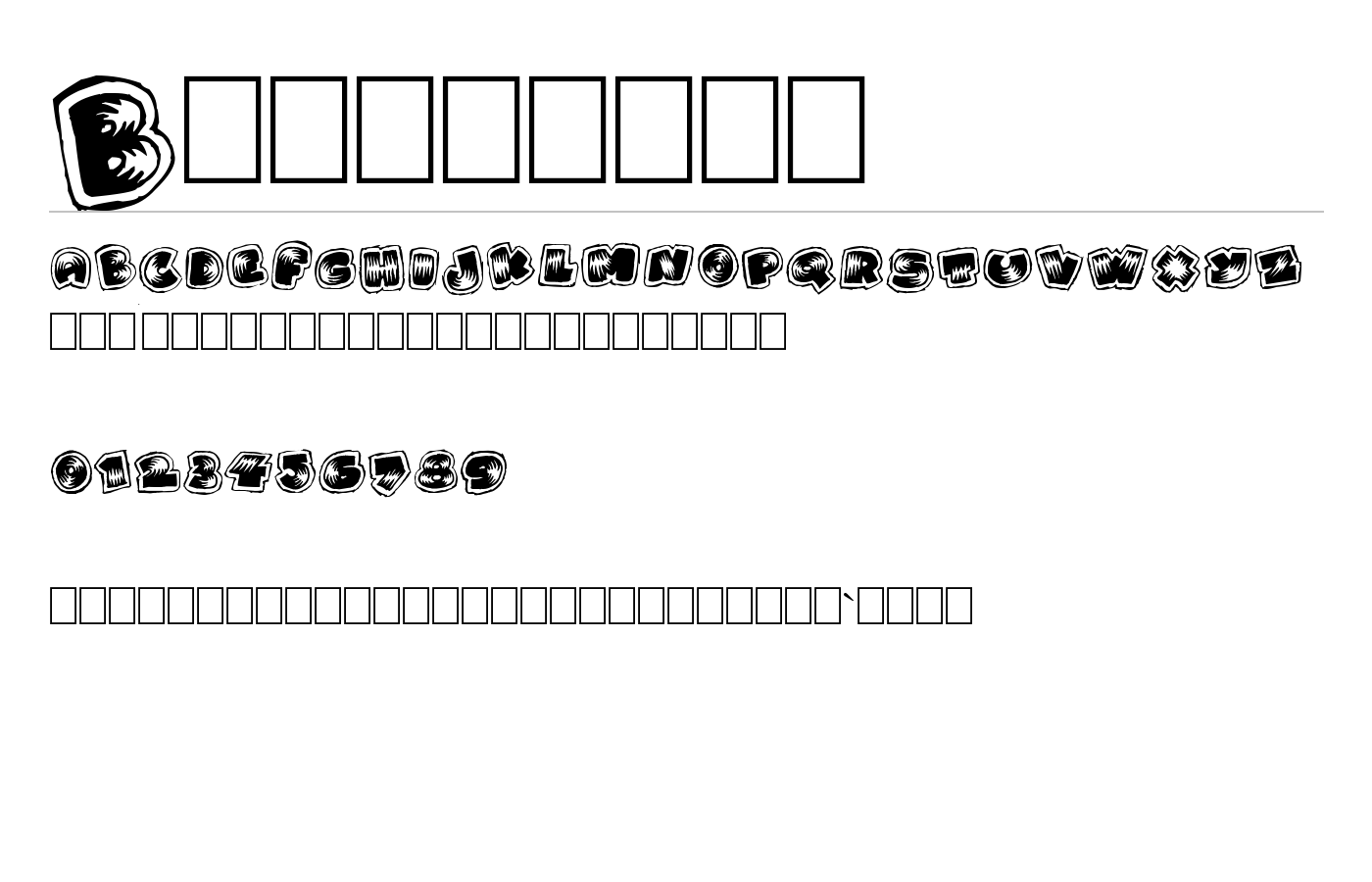
Brightoon is a playful, bold display font with a bubbly, cartoonish style featuring thick, irregular strokes and whimsical textures that give it a hand-drawn, energetic feel. Its chunky letterforms and high contrast detail make it perfect for fun, eye-catching designs like children’s products, posters, and casual branding where a lively, informal vibe is desired.
Brightoon Font
About Brightoon Font